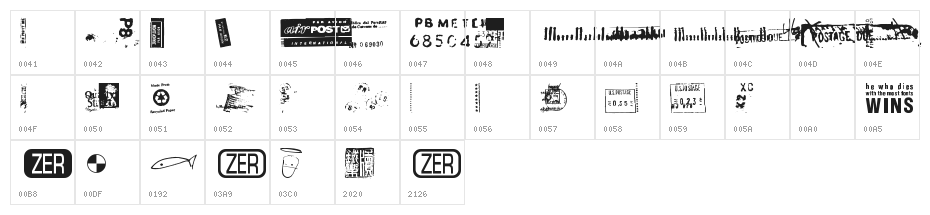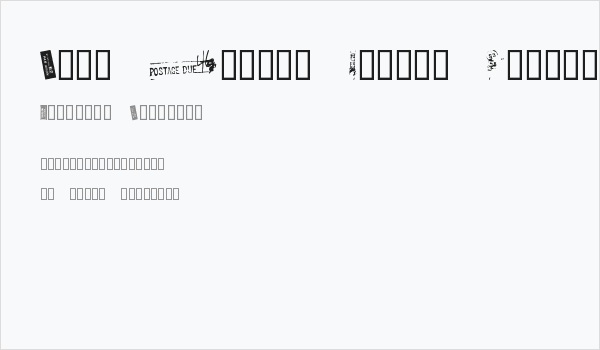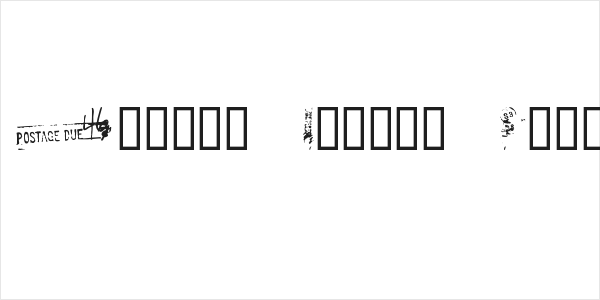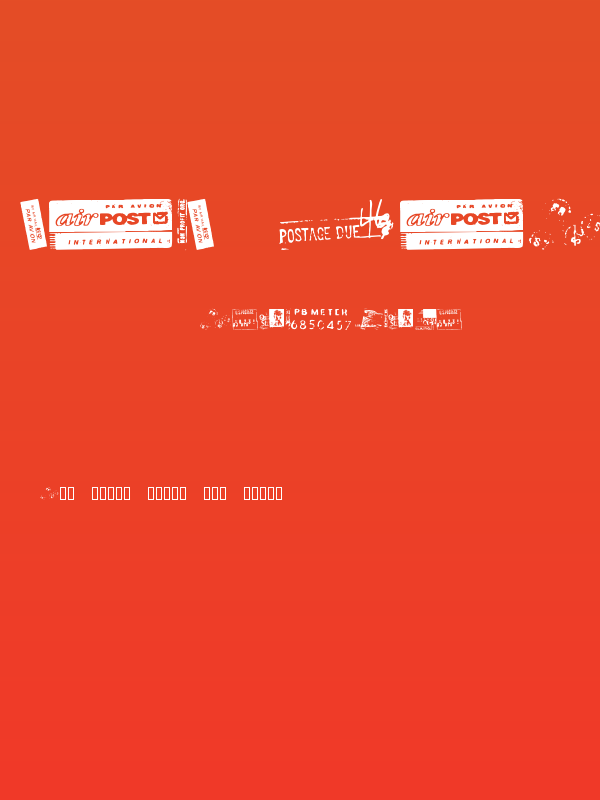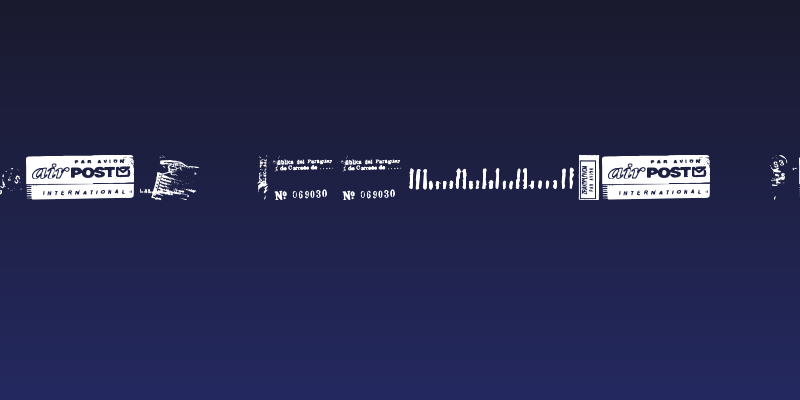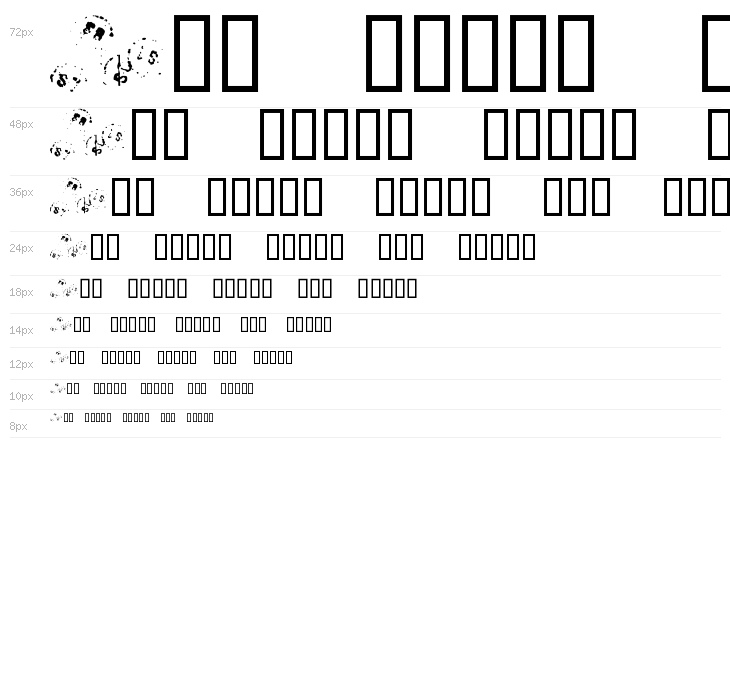
Dead Letter Office Seventeen Font
Dead Letter Office Seventeen Description
This image does not contain a valid font. It appears to be a collection of postal and stamp-related graphics, including various symbols, numbers, and text elements that resemble postal markings and stamps. The design is eclectic and decorative, featuring elements like postage meters, recycling symbols, and other postal service-related imagery. The overall style is reminiscent of vintage postal ephemera, with a mix of text and graphic elements that are not organized into a coherent typeface.
| Overall Style | Vintage, Decorative |
| Use Case | Decorative elements, Vintage-themed designs |
| Proposed Projects | This style could be used for creating vintage-themed postal designs, scrapbooking, or decorative elements in graphic design projects that require a postal or vintage aesthetic. |